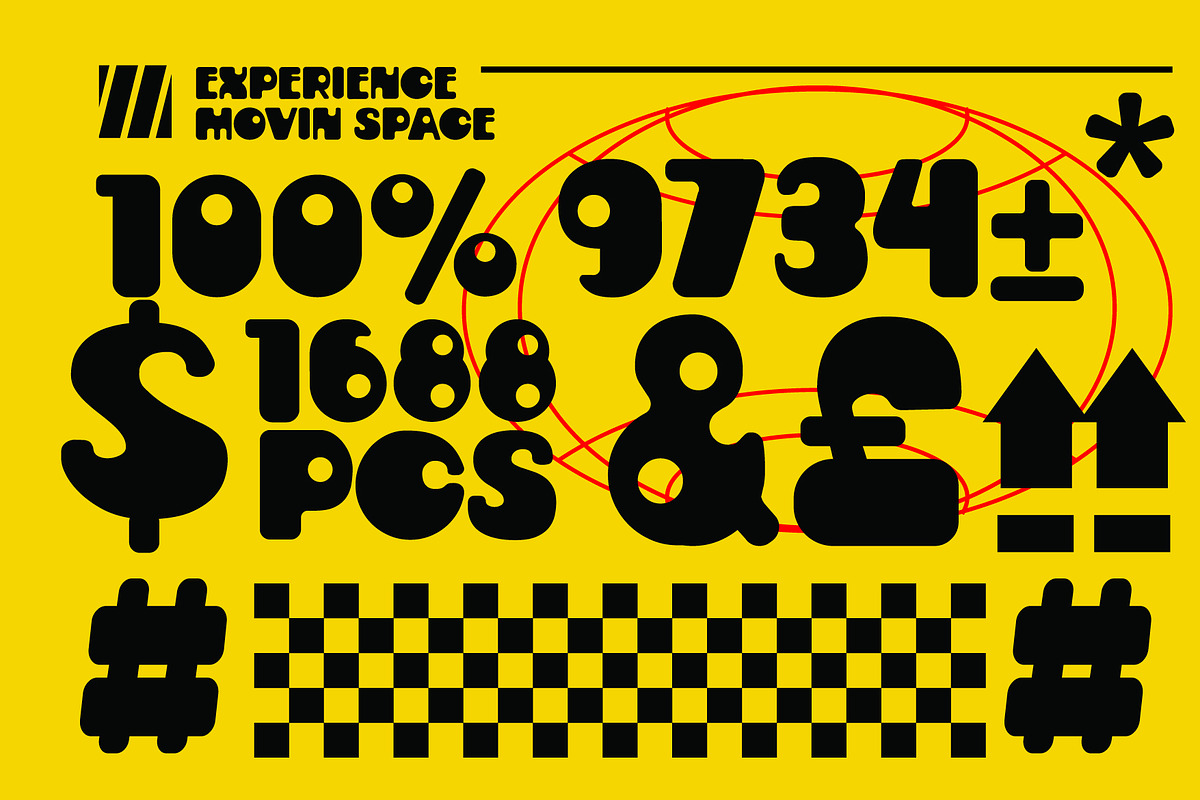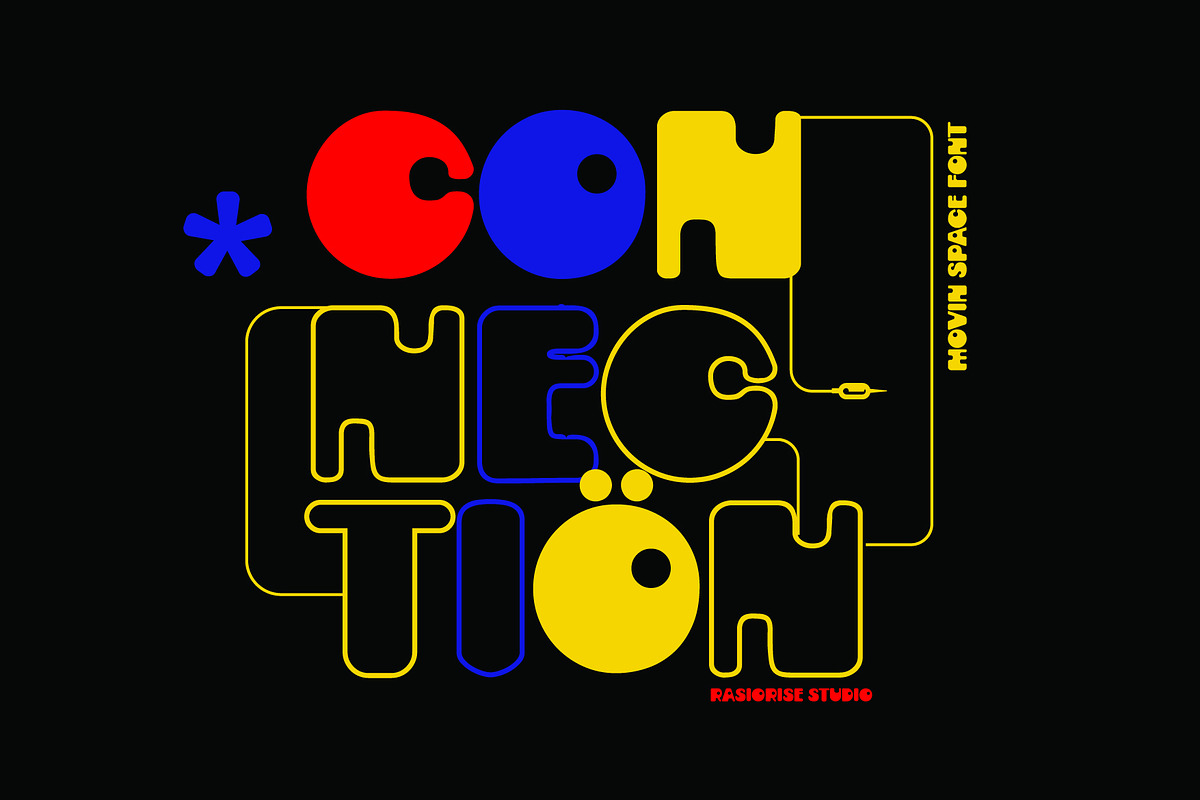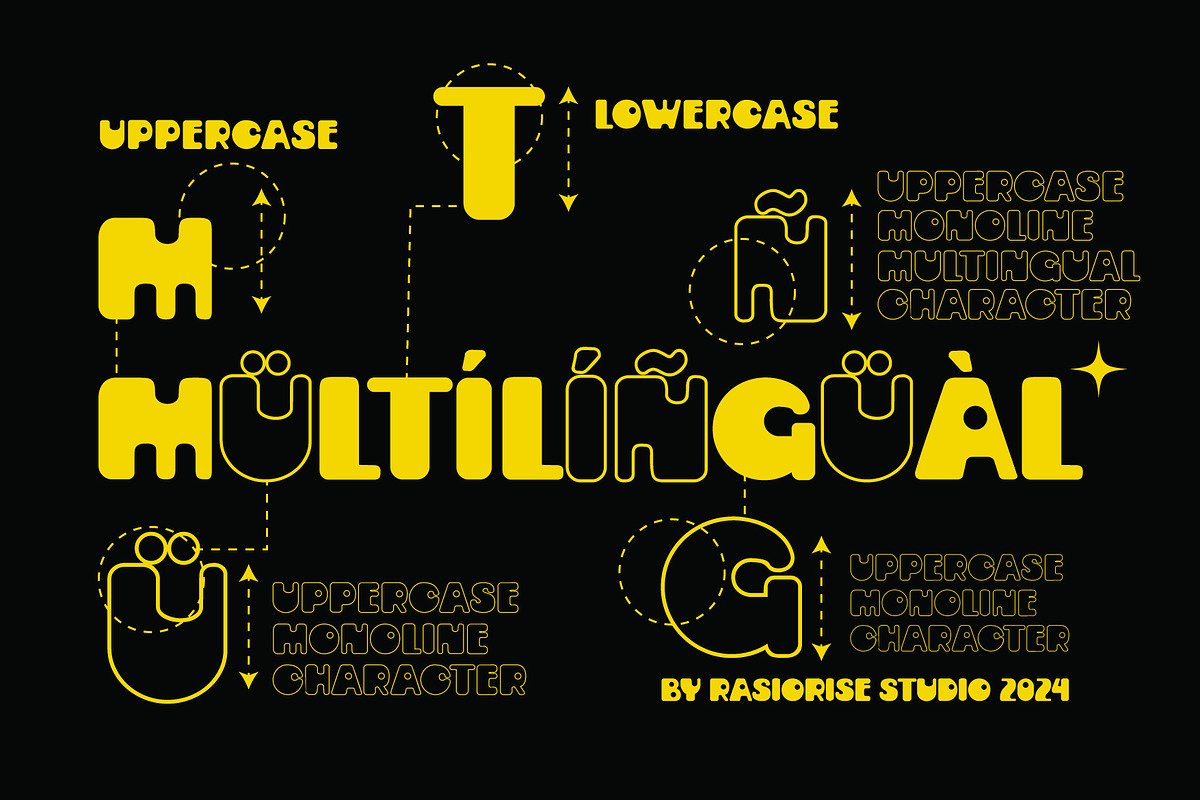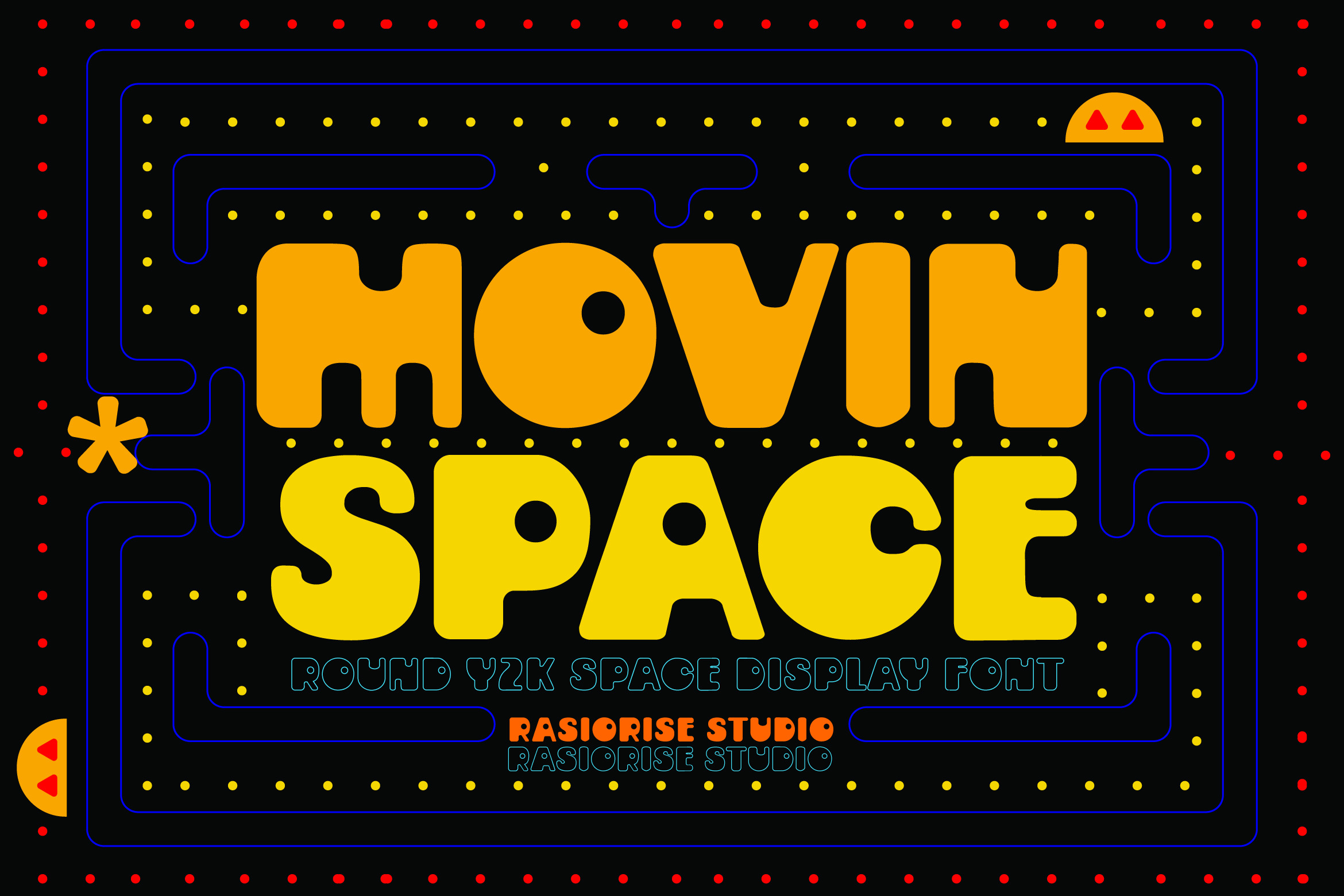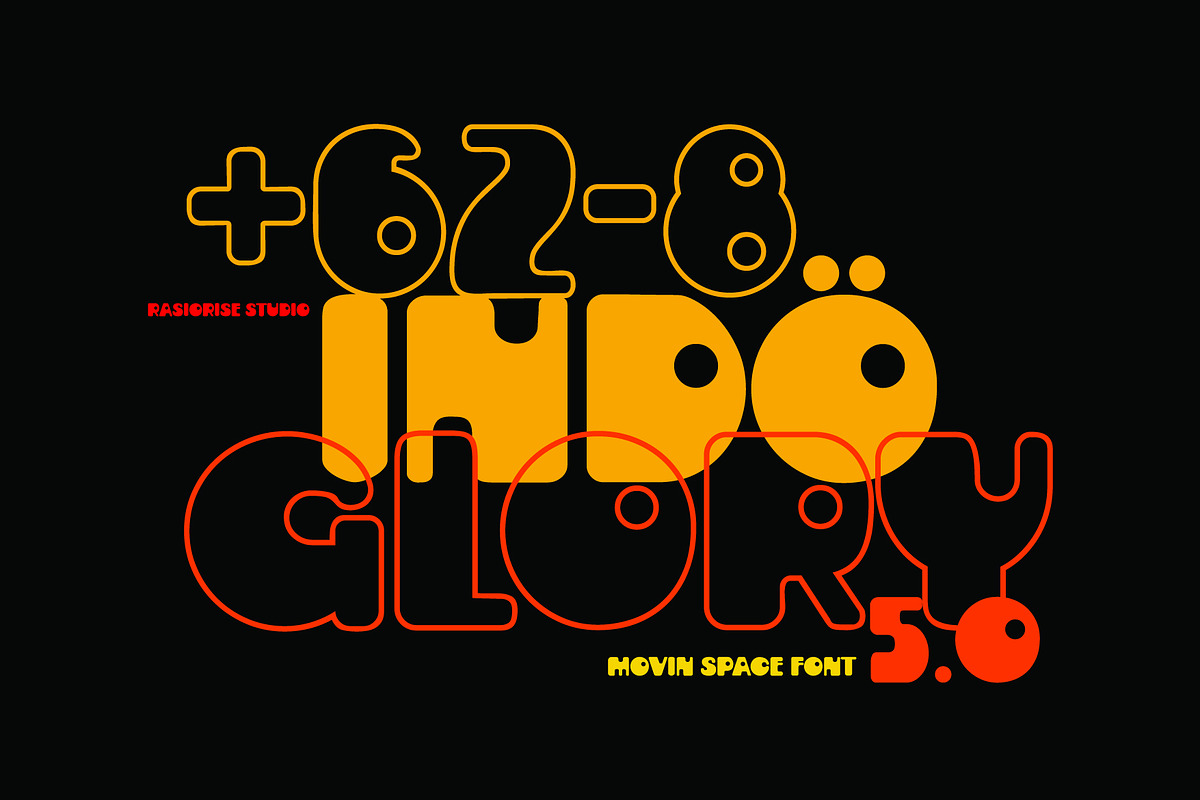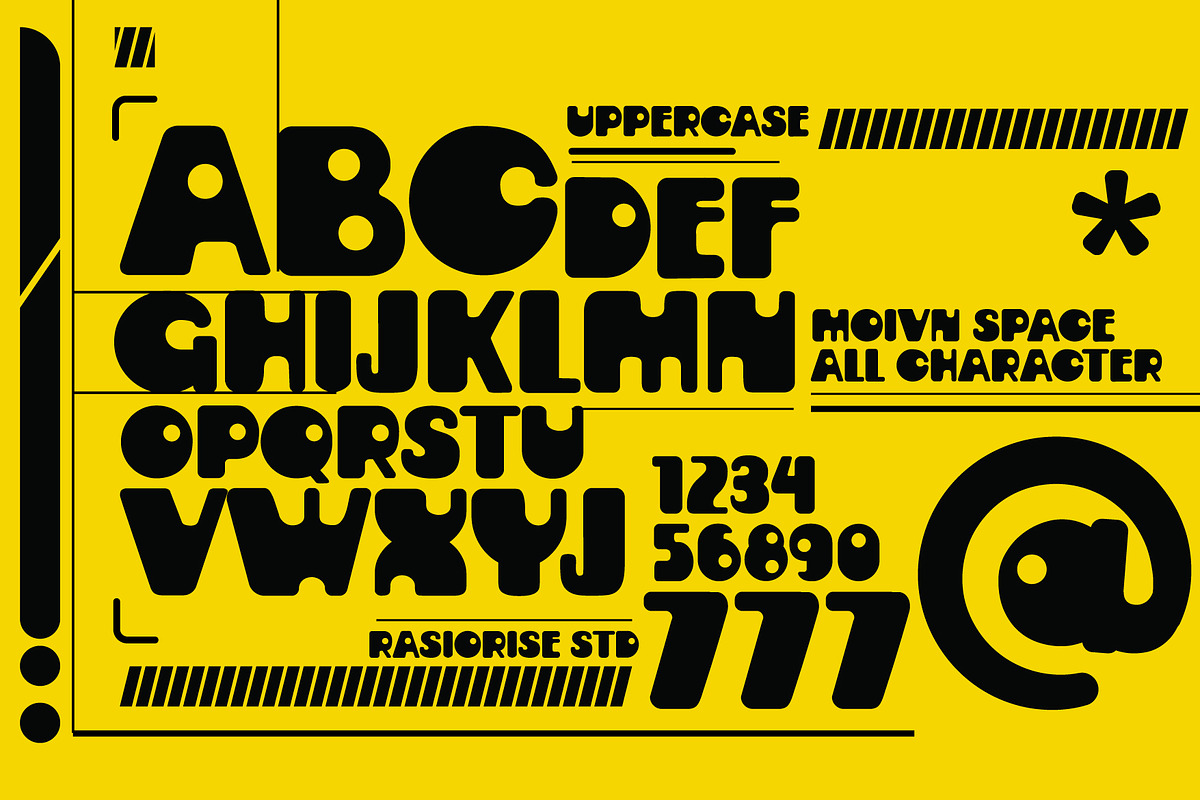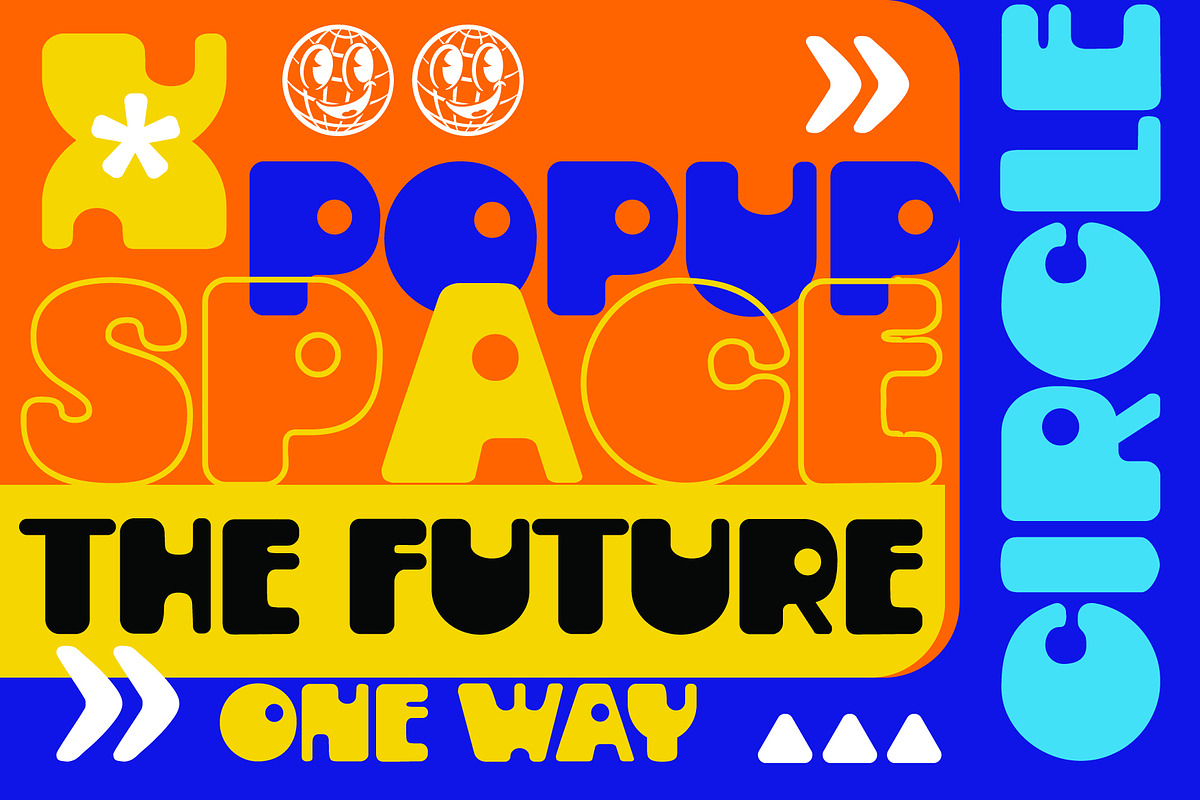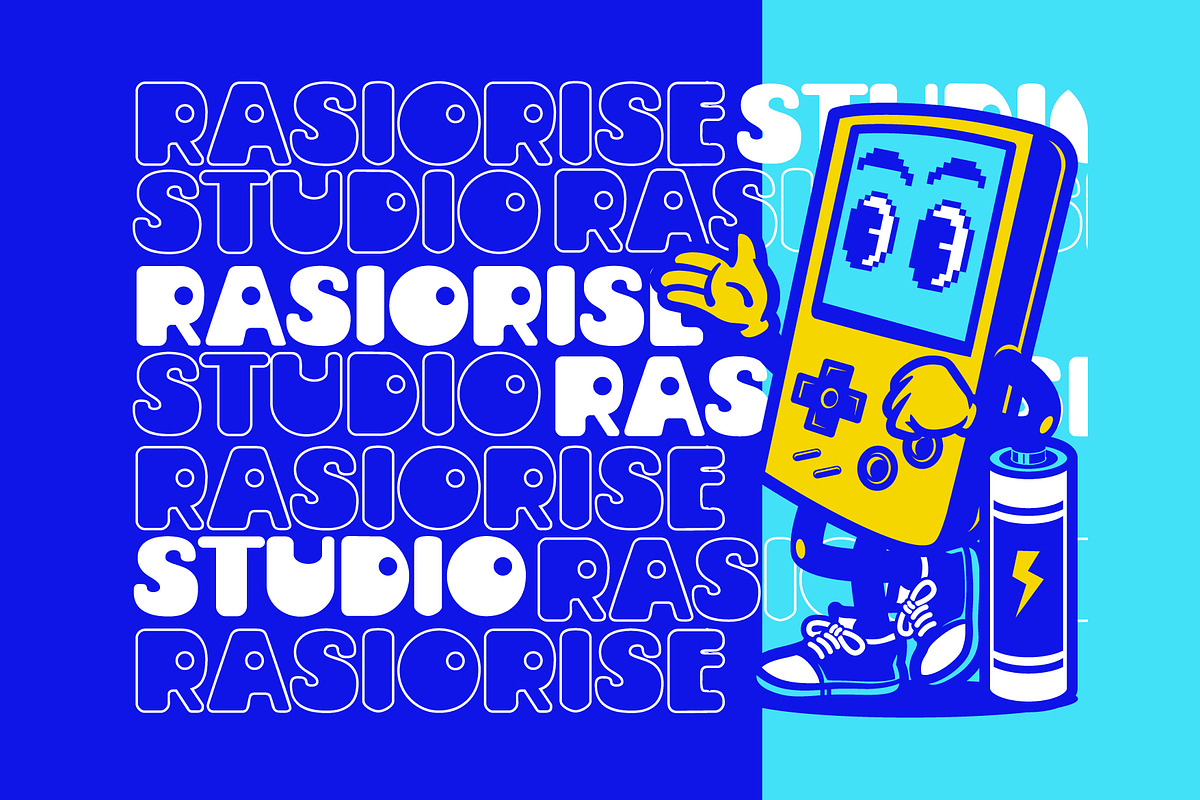
Movin Space a Y2K Game Font
Hello Everyone! Movin Space a Y2K Game Font has been released for those of you who are looking for a Y2K Groovy Decorative font, The font is inspired by the Space and Tech font style with a few combine to turn them into a bit of a Spcace Y2K modern style including 2 character font, Regular font and Outline Font Family Character font.